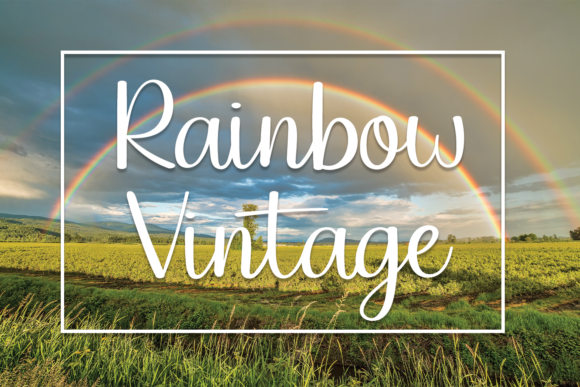
Embark on a voyage of visual enchantment with Rainbow Vintage Font—an exquisite handwritten font, a symphony of timeless elegance and contemporary flair. Its graceful strokes, reminiscent of a master calligrapher's touch, infuse your designs with an air of sophistication and charm.
Indulge in a symphony of visual aesthetics as Rainbow Vintage Font graces your creations with its captivating presence. Whether crafting eye-catching logos or branding, this font is your perfect companion. Its innate ability to transform ordinary words into mesmerizing works of art will leave an unforgettable impression on your audience.
Unleash your creativity and witness the transformation of your designs as Rainbow Vintage Font weaves its magic. Every letter, meticulously crafted with a unique and beautiful touch, dances across the screen, bringing your words to life with a vibrancy that captivates the senses.
Transport yourself to a realm of luxury and elegance as Rainbow Vintage Font elevates your designs to new heights of sophistication. Its timeless charm and modern sensibility blend seamlessly, creating a font that exudes both heritage and innovation.
Experience the allure of Rainbow Vintage Font and let your designs shine with a brilliance that commands attention. Its versatility knows no bounds, effortlessly adapting to a myriad of projects, from branding and logos to quotes and invitations.
Immerse yourself in the beauty of Rainbow Vintage Font and unlock a world of creative possibilities. Let its timeless elegance and captivating charm captivate your audience, leaving a lasting impression that lingers in their minds long after they encounter your creations.